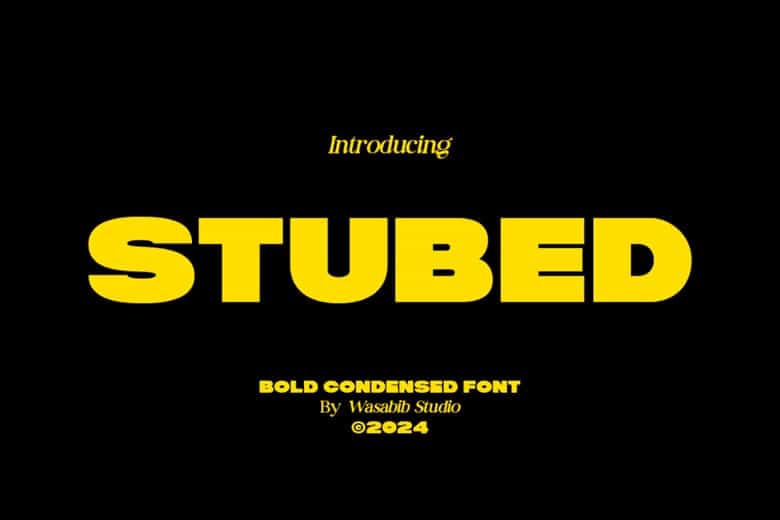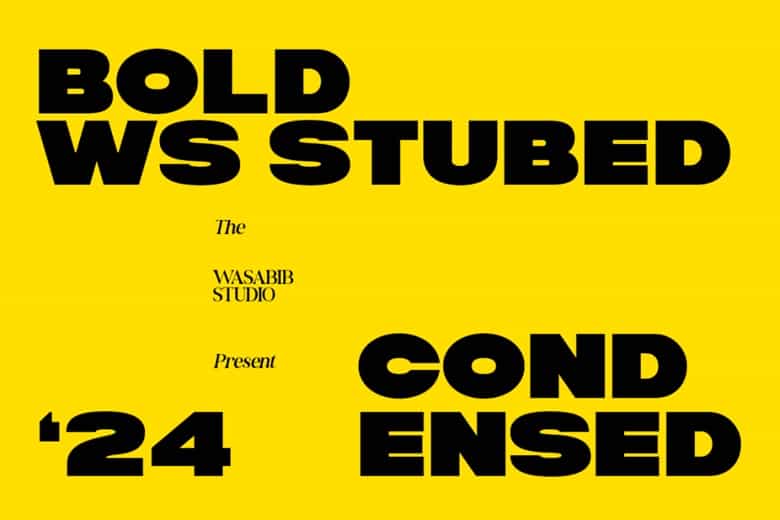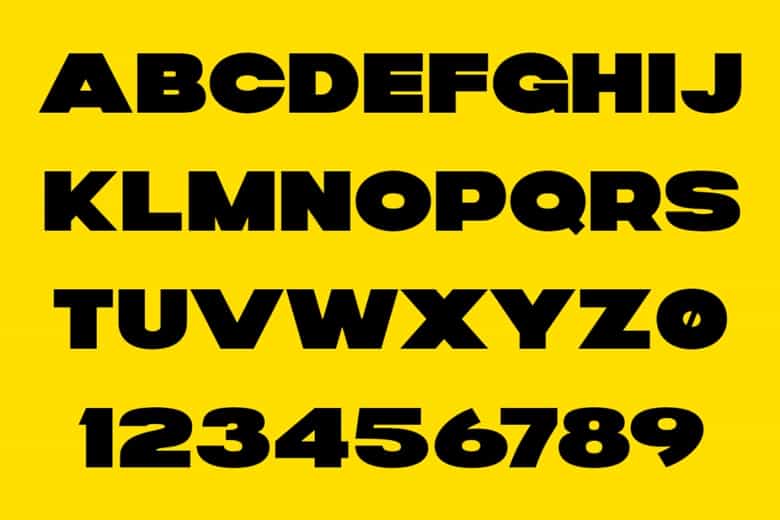
WS Stubed is a new bold modern condensed typeface that is ideal for branding purposes. Through its strong and effective design it can be very useful for creating strong corporate image which reflects strength, modernness and professionalism. The design of WS Stubed is built with many hard and clear lines which causes them to be attention-commanding.